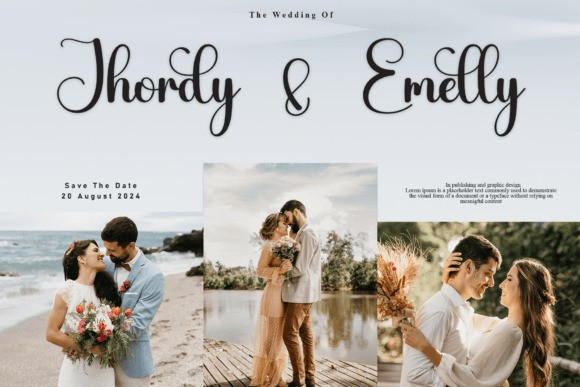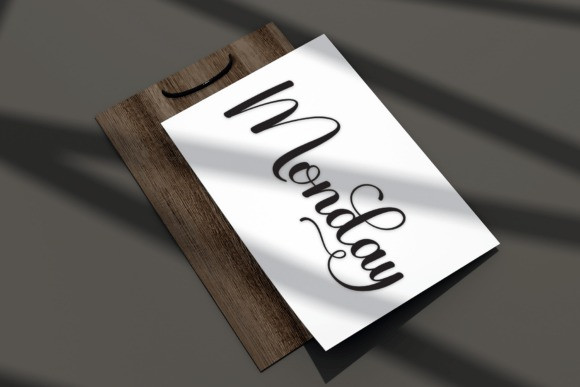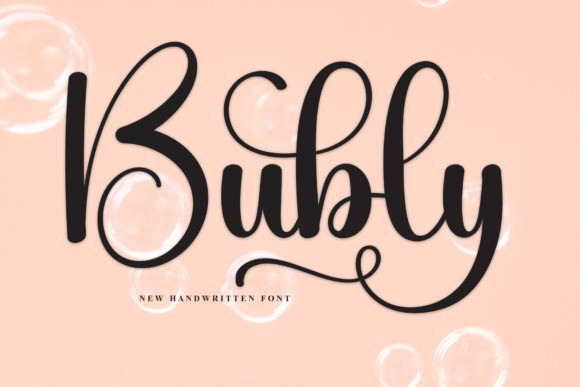
Bubly Script Font
Bubly Script Font is a bold, elegant handwritten font with a smooth, flowing style. Its luxury design adds a classy and personal touch, making it perfect for special occasions, branding, or stylish projects.